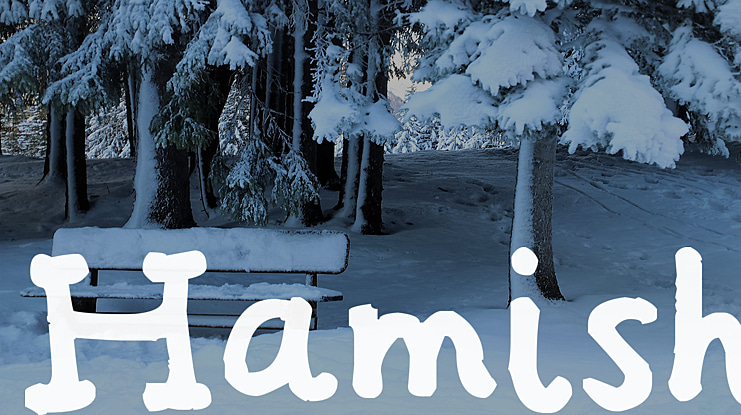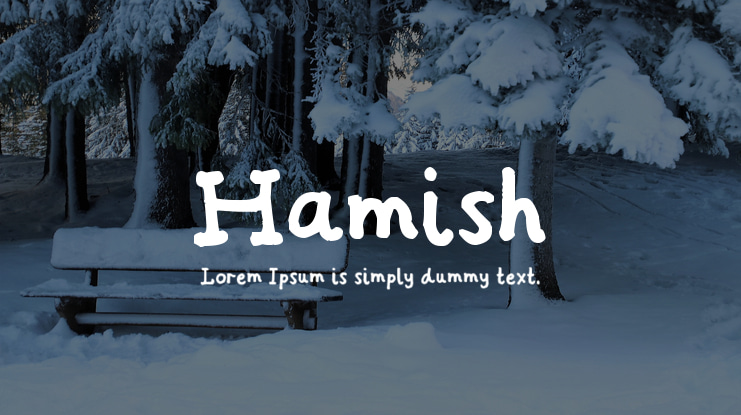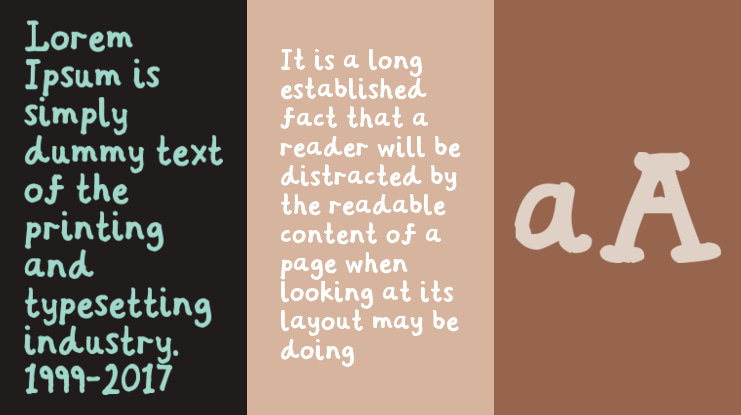
Hamish Font
I designed this font and paid £7 for it to be vectorised, and I have used it on a couple of my websites, as well as print material and it seems to look good on both. Very readable, and the funny thing is it has a mixture of sans-serif in lowercase and serif in uppercase, which was completely unintentional.
I do a lot of scanning and hand-done work, so it seemed the natural thing to make a font.